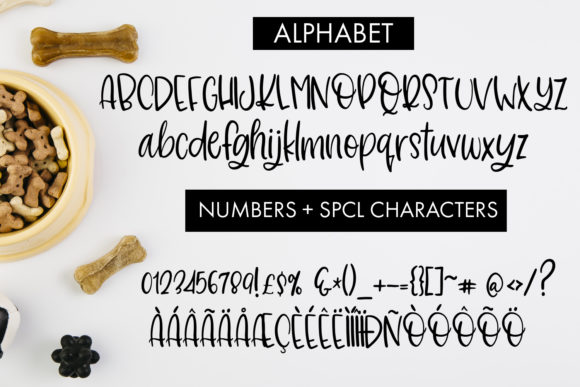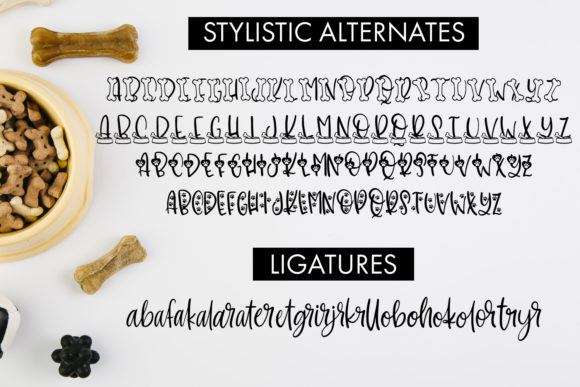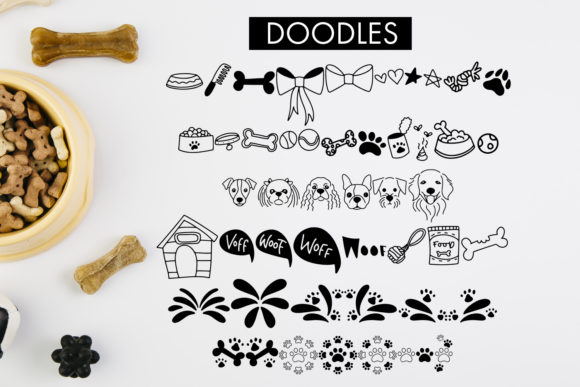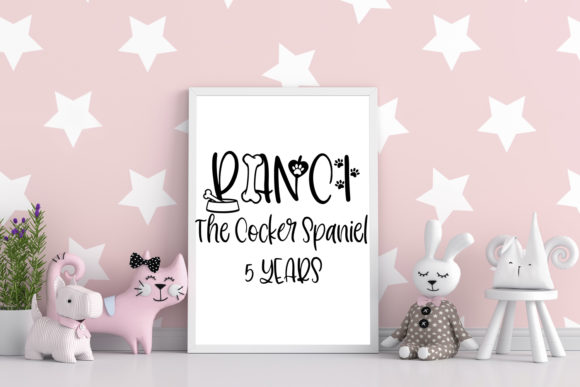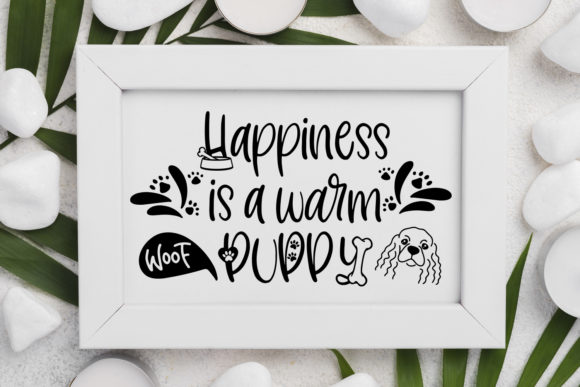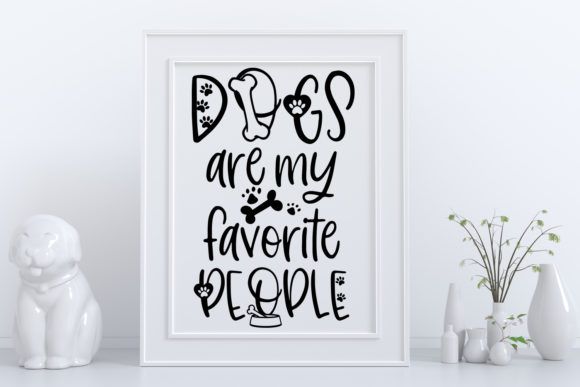
Dolores The Schnauzer Font: A Cute and Friendly Display Font for Your Creative Projects
Are you a designer or crafter looking for a font that can add a touch of warmth and personality to your creative projects? Look no further than Dolores The Schnauzer Font! This adorable display font is perfect for anyone who wants to add a friendly and approachable feel to their designs. In this article, we’ll take a closer look at Dolores The Schnauzer Font and explore its features, benefits, and uses.
What is Dolores The Schnauzer Font?
Dolores The Schnauzer Font is a cute and casual display font that is designed to evoke a sense of friendliness and approachability. With its playful and charming lettering style, this font is perfect for designers and crafters who want to add a personal touch to their projects. Whether you’re creating social media graphics, DIY projects, or professional designs, Dolores The Schnauzer Font is sure to make your work stand out.
Key Features of Dolores The Schnauzer Font
So, what makes Dolores The Schnauzer Font so special? Here are some of its key features:
- Cute and Casual Design: Dolores The Schnauzer Font has a playful and charming design that is perfect for creating friendly and approachable designs.
- Display Font: This font is designed as a display font, making it perfect for headlines, titles, and other prominent text elements.
- Hand-Drawn Lettering Style: Dolores The Schnauzer Font has a hand-drawn lettering style that gives it a personal and unique feel.
- Multilingual Support: This font supports multiple languages, making it perfect for designers and crafters who work with international clients or audiences.
Benefits of Using Dolores The Schnauzer Font
So, why should you choose Dolores The Schnauzer Font for your creative projects? Here are some of its benefits:
- Adds a Personal Touch: Dolores The Schnauzer Font adds a personal and friendly touch to your designs, making them more approachable and engaging.
- Perfect for Social Media: This font is perfect for creating social media graphics, such as Instagram posts and stories, that require a friendly and casual tone.
- Great for DIY Projects: Dolores The Schnauzer Font is also great for DIY projects, such as crafting, scrapbooking, and journaling, where a personal touch is desired.
- Easy to Read: This font is easy to read, even at smaller sizes, making it perfect for designs that require a clear and legible text.
Uses of Dolores The Schnauzer Font
Dolores The Schnauzer Font is a versatile font that can be used in a variety of creative projects, including:
- Social Media Graphics: Use Dolores The Schnauzer Font to create friendly and engaging social media graphics, such as Instagram posts and stories.
- DIY Projects: This font is perfect for DIY projects, such as crafting, scrapbooking, and journaling.
- Professional Designs: Dolores The Schnauzer Font can also be used in professional designs, such as brochures, flyers, and posters, where a friendly and approachable tone is desired.
- Calligraphy Scripts: This font can be used as a calligraphy script for DIY projects, such as hand-lettering and calligraphy art.
| Font Name | Dolores the Schnauzer Font |
| Author | freelingdesignhouse |
In conclusion, Dolores The Schnauzer Font is a cute and friendly display font that is perfect for designers and crafters who want to add a personal touch to their creative projects. With its playful and charming lettering style, this font is sure to make your work stand out. Whether you’re creating social media graphics, DIY projects, or professional designs, Dolores The Schnauzer Font is a great choice. So, why not give it a try and see how it can elevate your designs?